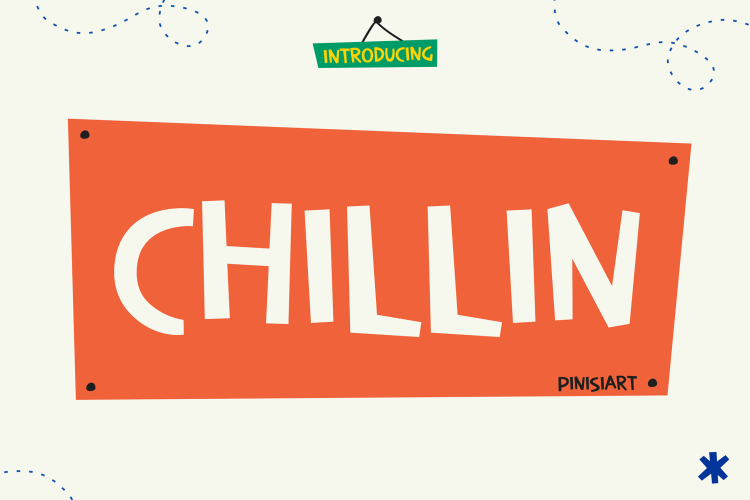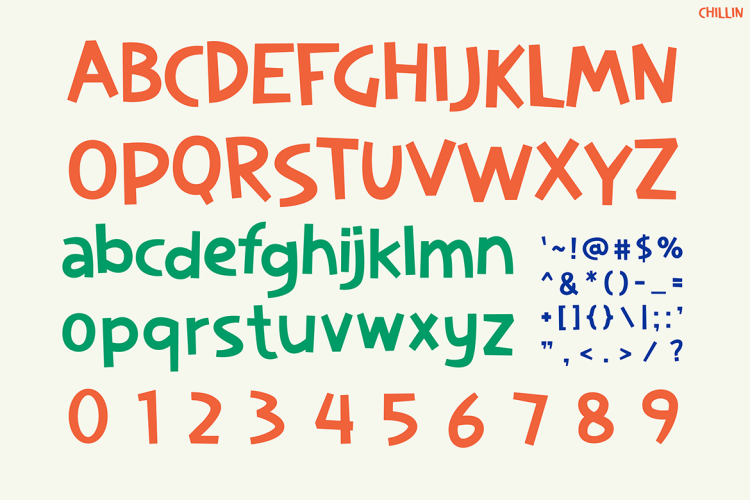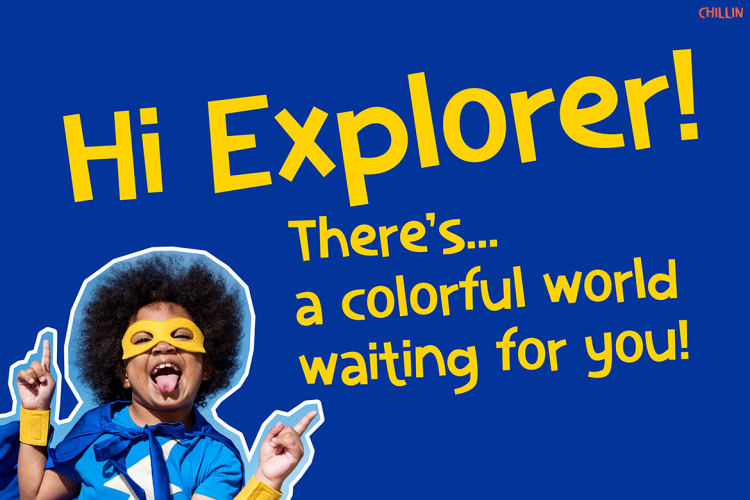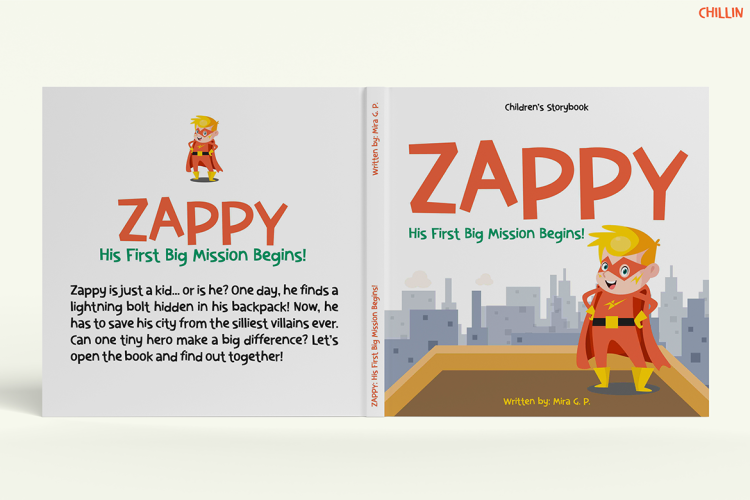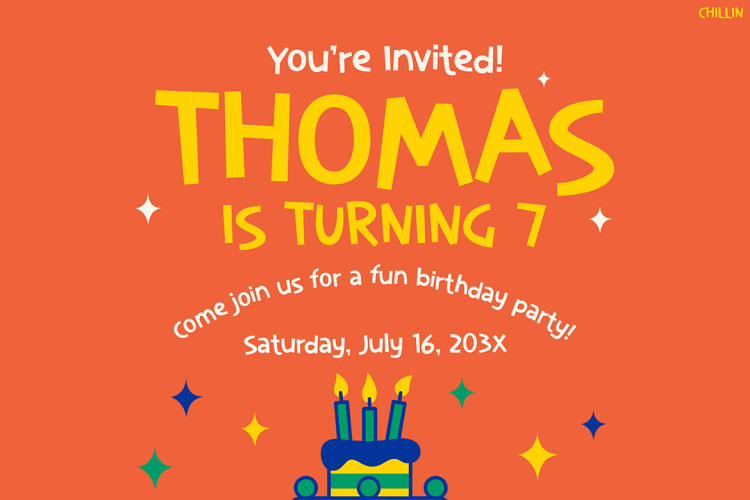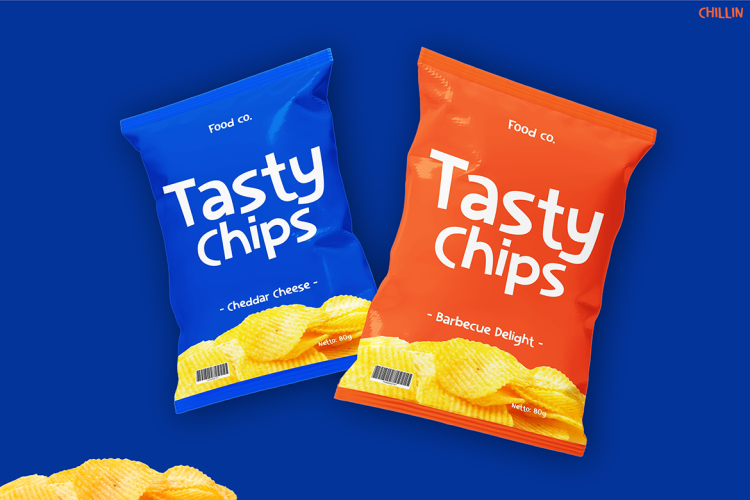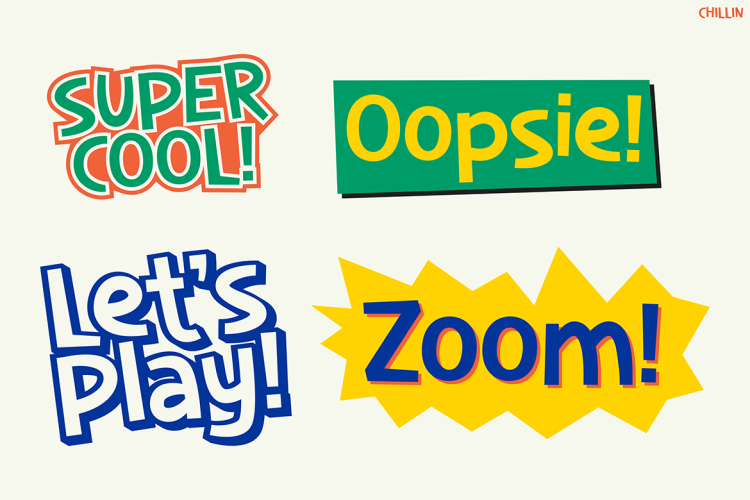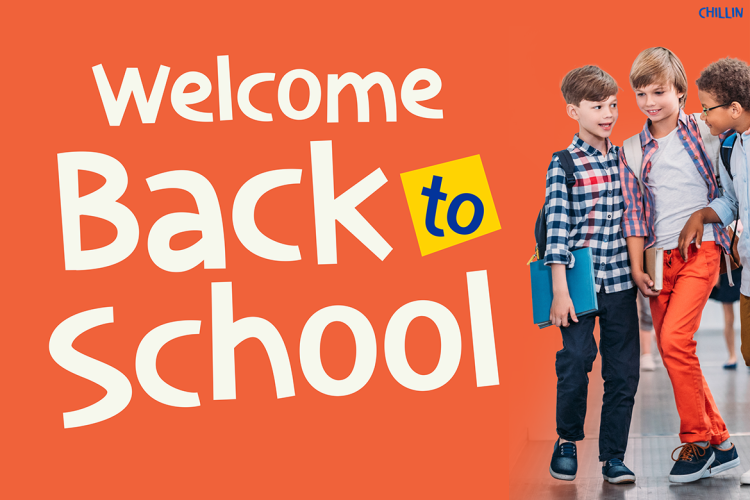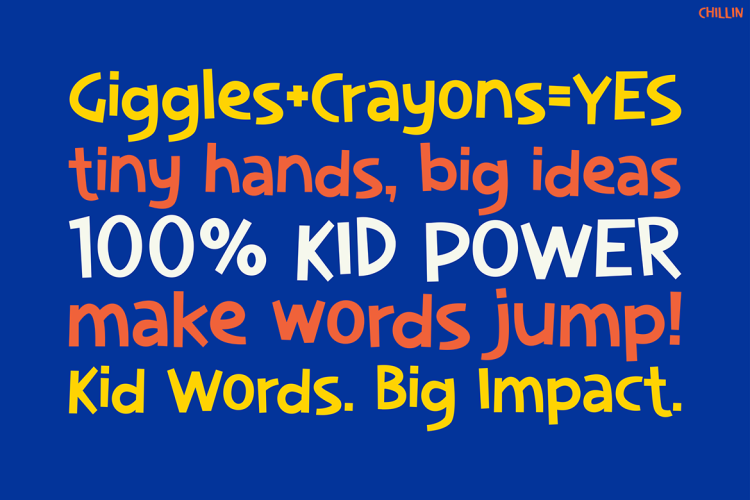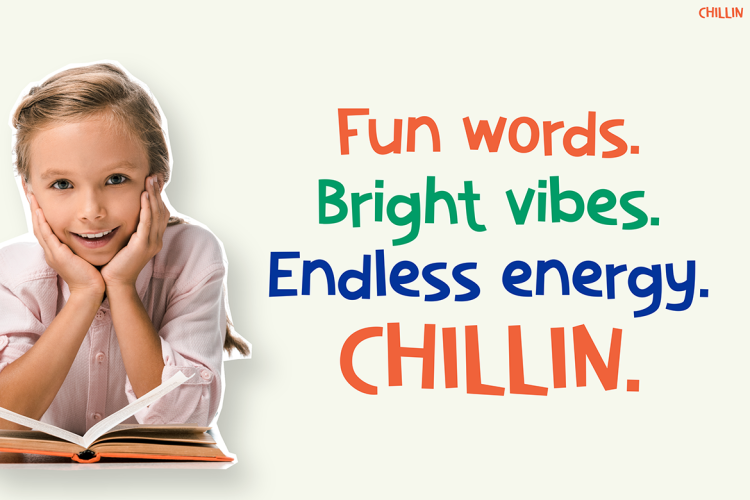
Kids Font Chillin is the ultimate typeface for bringing words to life in a playful, vibrant, and kid-friendly way. With its bold strokes, bouncy letterforms, and quirky hand-drawn feel, this font instantly adds energy to any design. Moreover, its rounded edges and cheerful spacing make it warm and approachable, while still maintaining excellent legibilityโeven for younger readers. Whether you’re designing for print or digital, this fontโs aesthetic charm turns everyday words into joyful expressions. In addition, it supports multiple languages and includes fun extras like numbers and symbols, making it a smart and versatile choice for various creative needs.
Kids Font Chillin Perfect For:
Teachers, parents, authors, and creative brands who aim to connect with kids through design will love using Kids Font Chillin. Because of its friendly and expressive personality, it works exceptionally well across a wide range of uses.
For instance, children’s book titles such as โZappyโ or catchy educational headings like โHi Explorer!โ become more dynamic and attention-grabbing. Similarly, product packagingโlike the bright and fun โTasty Chipsโโfeels more inviting when paired with this font. Not only that, but school posters, classroom dรฉcor, and learning materials become more engaging and easier to digest for young learners.
Furthermore, birthday invitations, back-to-school graphics, or even app interfaces can benefit from the lively touch that Kids Font Chillin provides. Whether you want your words to jump off the page or simply make a friendly first impression, this font is a dependable companion for any project with a youthful audience.